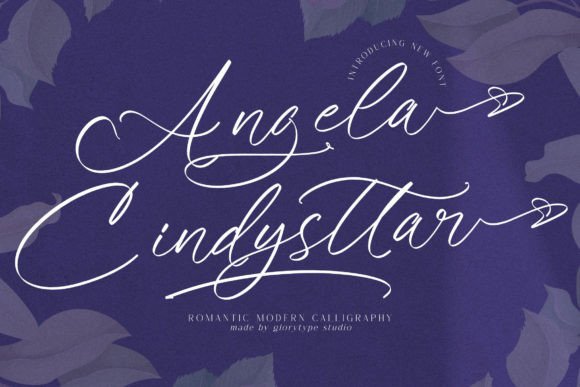
The Designer’s Delight: Angela Cindysttar Font
I’ll never forget the time I was working on a project for a high-end client, pouring my heart and soul into every detail, only to hit a roadblock: finding the perfect font. The design was sleek, modern, and sophisticated, but the font I had chosen just wasn’t cutting it. It was then that I stumbled upon Angela Cindysttar, an exquisite handwritten font that instantly elevated my design to new heights. In this article, I’ll share my love for this beautiful font, its features, and how to make the most of it in your designs.
An Honest Review of Angela Cindysttar
• ✨ Classy calligraphic influences that add a touch of elegance to any design
• ✅ Contemporary and fresh feel that makes it perfect for modern projects
• 💫 Beautifully crafted to make your designs stand out
• 🎨 Highly versatile and can be used for a wide range of projects, from branding to invitations
While Angela Cindysttar is an amazing font, there are a few things to keep in mind:
• ⚠️ Some users have reported issues with kerning, which can be easily adjusted in certain design software
• 🤔 Limited availability of language support, but it’s sufficient for most English-language projects
A Practical Guide to Using Angela Cindysttar
4. Experiment with OpenType features, such as ligatures and stylistic alternates, to add more personality to your text
4. Exploring the various glyphs and stylistic alternates available
The Story Behind Angela Cindysttar
Angela Cindysttar was designed with the intention of creating a font that’s both elegant and approachable. The designer aimed to craft a font that would be perfect for creative projects, from invitations to branding. With its beautiful calligraphic influences and modern feel, Angela Cindysttar has become a favorite among designers and crafters alike.
What makes Angela Cindysttar unique? Angela Cindysttar’s unique blend of classy calligraphic influences and modern feel sets it apart from other fonts.
Is Angela Cindysttar difficult to read? No, Angela Cindysttar is designed to be legible and easy to read, making it perfect for body text and headings.
In conclusion, Angela Cindysttar is a stunning handwritten font that’s sure to elevate your designs to new heights. With its beautiful calligraphic influences, modern feel, and versatility, it’s perfect for designers, crafters, and creative hobbyists alike. Whether you’re working on a branding project, creating invitations, or simply looking for a beautiful font to add some personality to your design, Angela Cindysttar is an excellent choice.